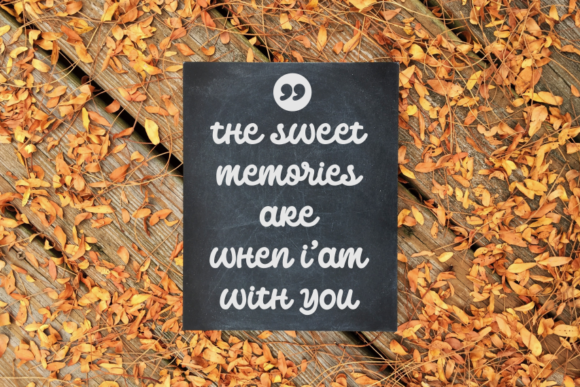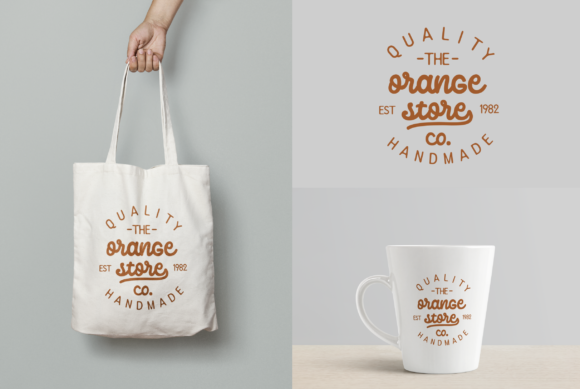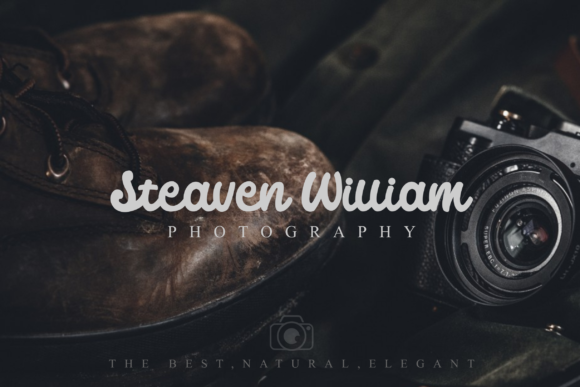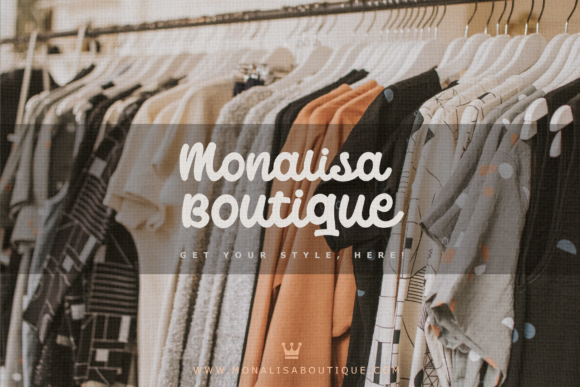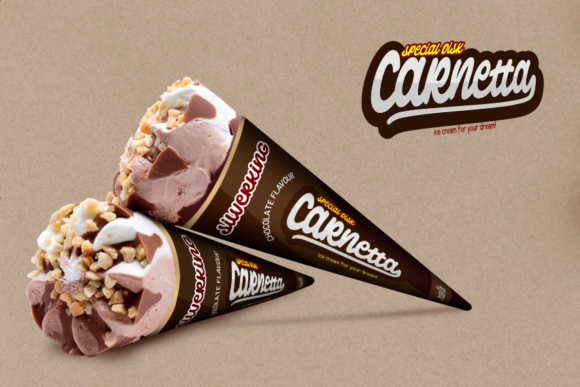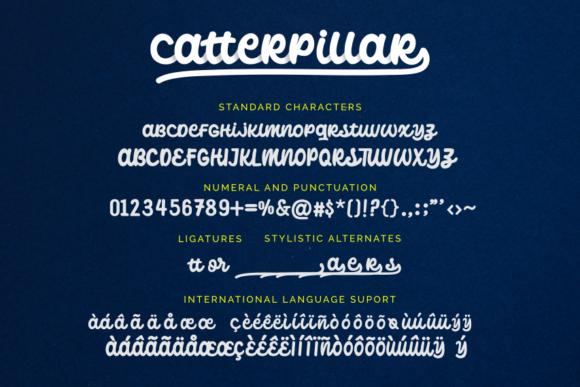
The Perfect Font for Your Next Masterpiece
Have you ever found yourself lost in a sea of ideas, trying to bring your creative vision to life? Maybe you’re brainstorming a new logo for your startup, designing a wedding invitation for a dear friend, or simply crafting a social media post that captures the essence of your brand. Whatever the project, one thing is certain: the right font can make all the difference.
Enter the Catterpillar Font, a flowing handwritten font that exudes elegance and sophistication. With its distinct and timeless style, this font is perfect for adding a touch of personality to your designs. Whether you’re a seasoned designer or a creative enthusiast, the Catterpillar Font is a valuable addition to your toolkit. Its versatility and charm make it an ideal choice for a wide range of projects, from marketing materials to artistic expressions.
Catterpillar Font Key Features
- Unique Characteristics: The Catterpillar Font features a distinctive, playful design with rounded shapes and curved lines, making it perfect for children’s books, educational materials, and whimsical designs.
- Character Set: The font includes a comprehensive set of characters, including uppercase and lowercase letters, numbers, punctuation marks, and special characters, ensuring that users have everything they need to create engaging content.
- Style Variations: The Catterpillar Font comes in a range of styles, including regular, bold, italic, and bold italic, allowing users to mix and match different weights and styles to achieve the desired visual effect.
- Font Pairing: The Catterpillar Font is designed to pair well with other playful and whimsical fonts, making it an excellent choice for designers looking to create a cohesive and engaging visual brand.
Catterpillar Font Review
Catterpillar Font is a unique, hand-drawn font that I was excited to dive into. Let’s break it down.
- Customizability: The font offers a wide range of customization options, including multiple font weights, styles, and sizes. This makes it perfect for creating distinctive and personalized designs.
- Playful vibe: The Catterpillar Font has a fun, whimsical feel to it that’s perfect for projects that require a touch of playfulness, like children’s books or social media graphics.
- Legibility: Despite its handwritten feel, the font is surprisingly easy to read, even at smaller font sizes.
- Limited versatility: While the font is great for playful projects, it may not be the best choice for more formal or professional designs.
- Not suitable for body text: Due to its playful, handwritten nature, the font may not be the best choice for large blocks of body text.
Overall, I think the Catterpillar Font is a great addition to any designer’s toolkit. While it may have some limitations, its unique character and customizability make it a great choice for the right project. Just remember to use it thoughtfully and in moderation.
Common Use Cases for Catterpillar Font
The Catterpillar Font is ideal for use in children’s books, nursery rhymes, and educational materials. It can also be used in advertising and marketing materials to add a playful and whimsical touch.